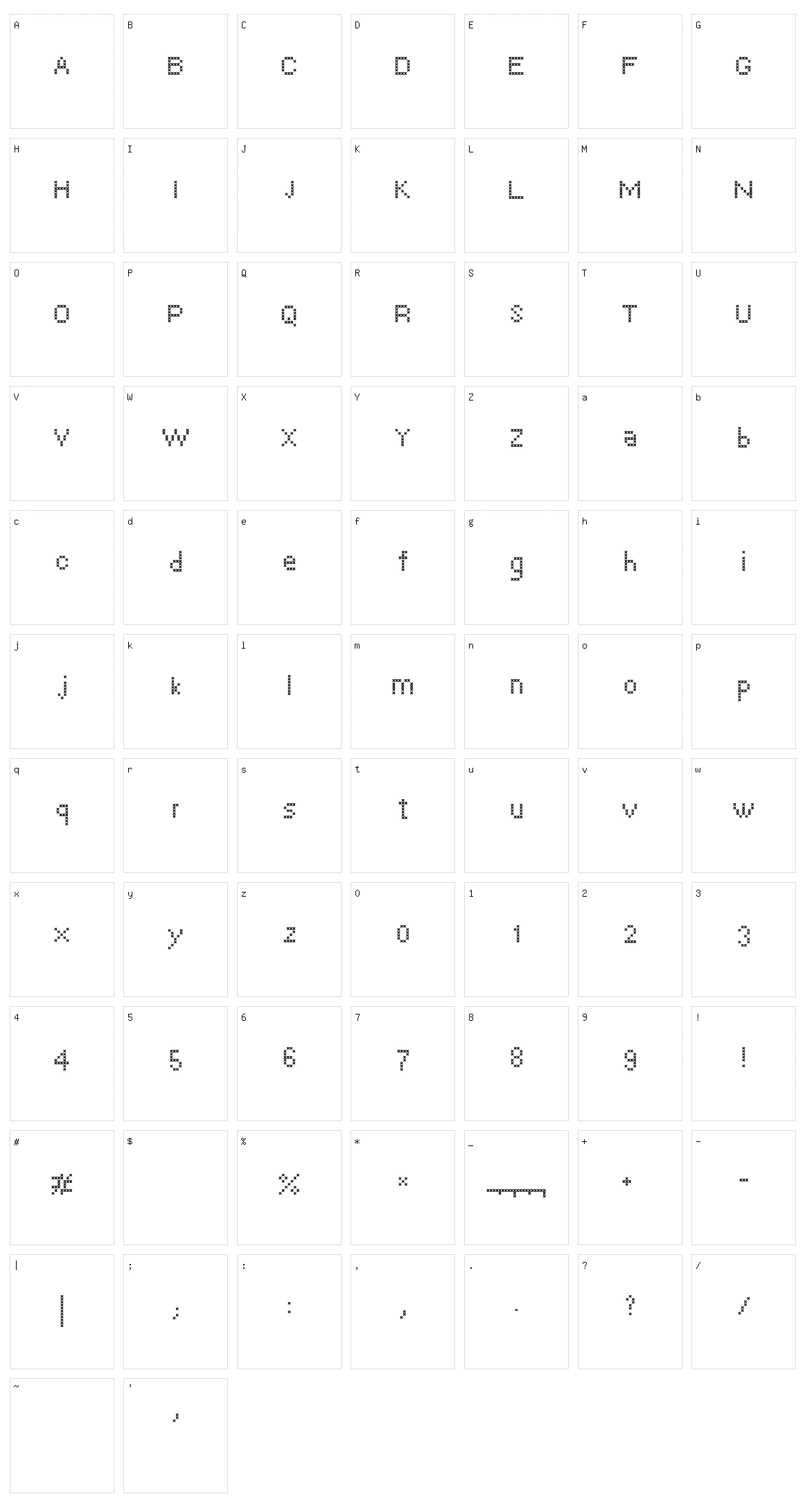
# FONTLOG for the Festive Advanced Cross-Stitch Fonts #
# Basic Font Information #
ACSF-Festive are two similar rock'n roll cross-stitch fonts designed by P. Baudin.
- acsf-festive-5pt.ttf (cross-stitches placed in a grid)
- acsf-festive-5pt-light.ttf (cross-stitches without grid)
ACSF-Festive is a Unicode typeface that supports languages that use the Latin
script and requires the OpenType feature `calt` in addition to the classic
kerning.
Even the fonts don't contain any ligature, they support partially the Latin-1
Unicode range. The fonts are incomplete but contains the letters used in most
alphabets of European Latin languages (diacritic characters included), Czech
letters with inverted hat, the German eszett ligature and specific letters of
some Scandinave alphabets.
The fonts contains some special characters:
- `~`: 1pt space
- `_`: 20pt of cross stiches
- `$`: cuts a ligature (including kerning) and doesn't introduce any space.
That character can be used to get the rock'n roll effect: inserting one
or more `$` at the begining of words may change their layout.
- Initial design of ACSF-Festive fonts derived from cross-stitch charts
published before 1930.